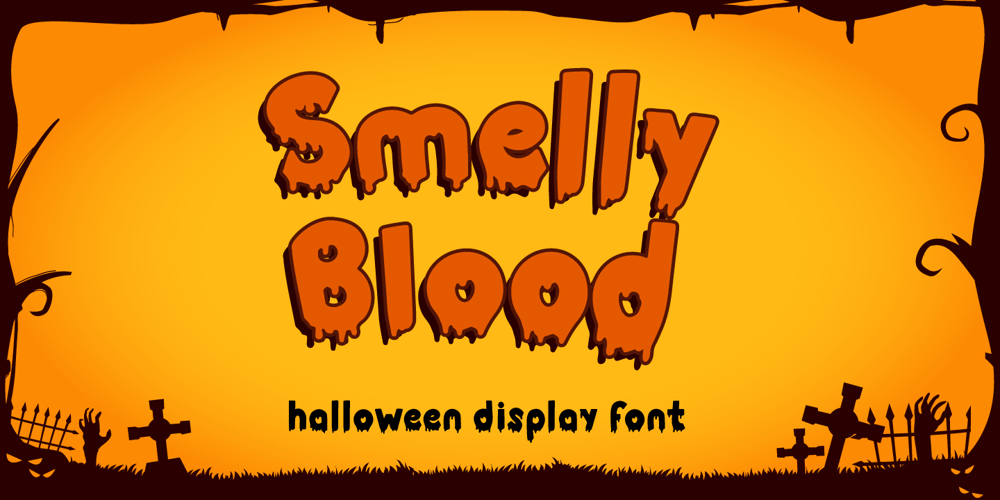
Smelly Blood Font Family was designed by Fadli Ramadhan Iskandar and published by Attype Studio. Smelly Blood contains 1 styles and family package options. Smelly Blood is a bold and quirky display font. Add this font to your creative ideas and notice how it will make them stand out!Smelly Blood is perfect for branding, logo, invitation, stationery, social media post, product packaging, merchandise, blog design, game titles, cute style design, Book/Cover Title and more.What’s Included :- Smelly Blood.otf- Multilingual Support (Afrikaans, Albanian, Catalan, Danish, Dutch, English, Estonian, Finnish, French, German, Icelandic, Italian, Norwegian, Portugese, Spanisch, Swedish, Zulu)